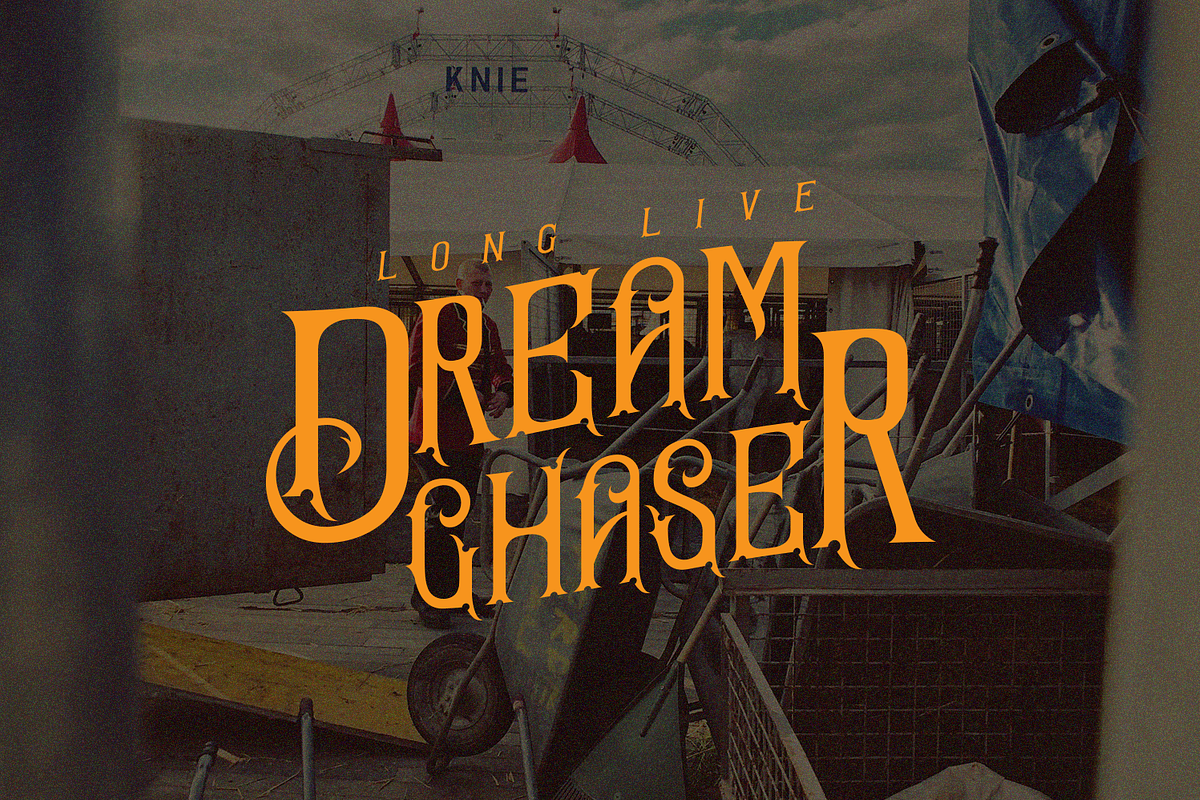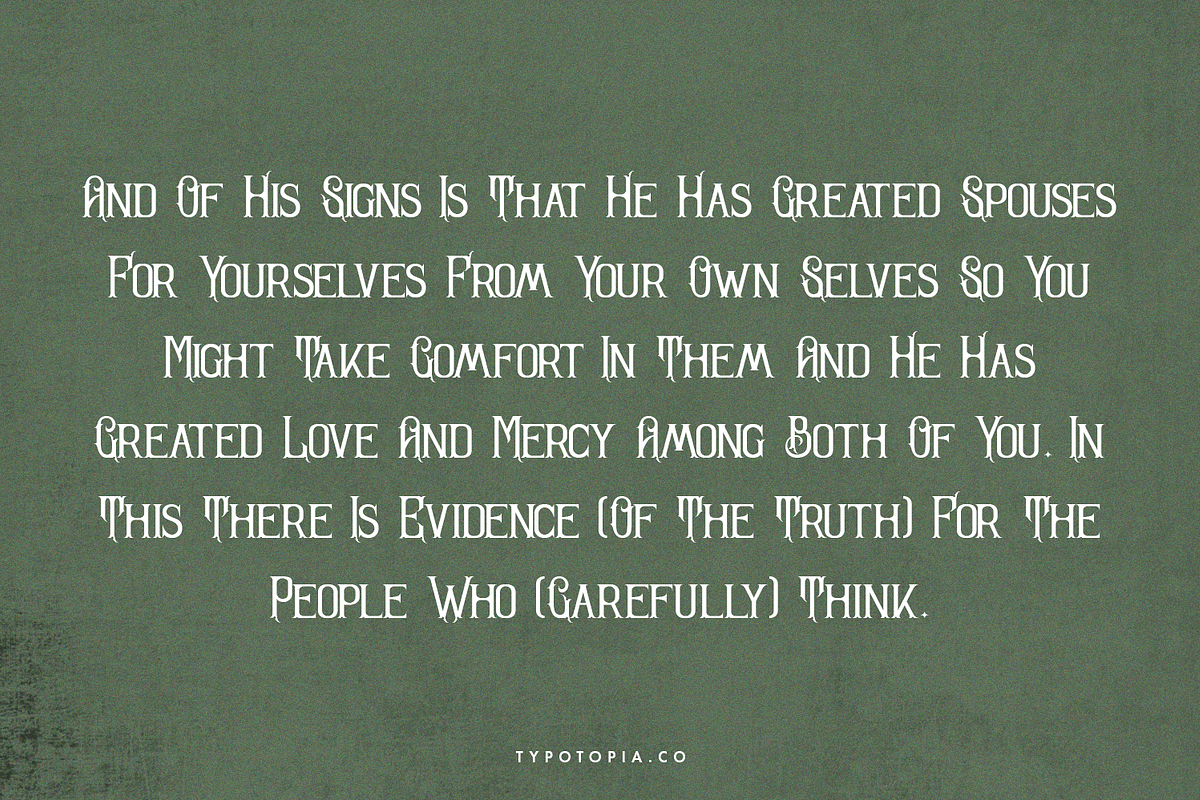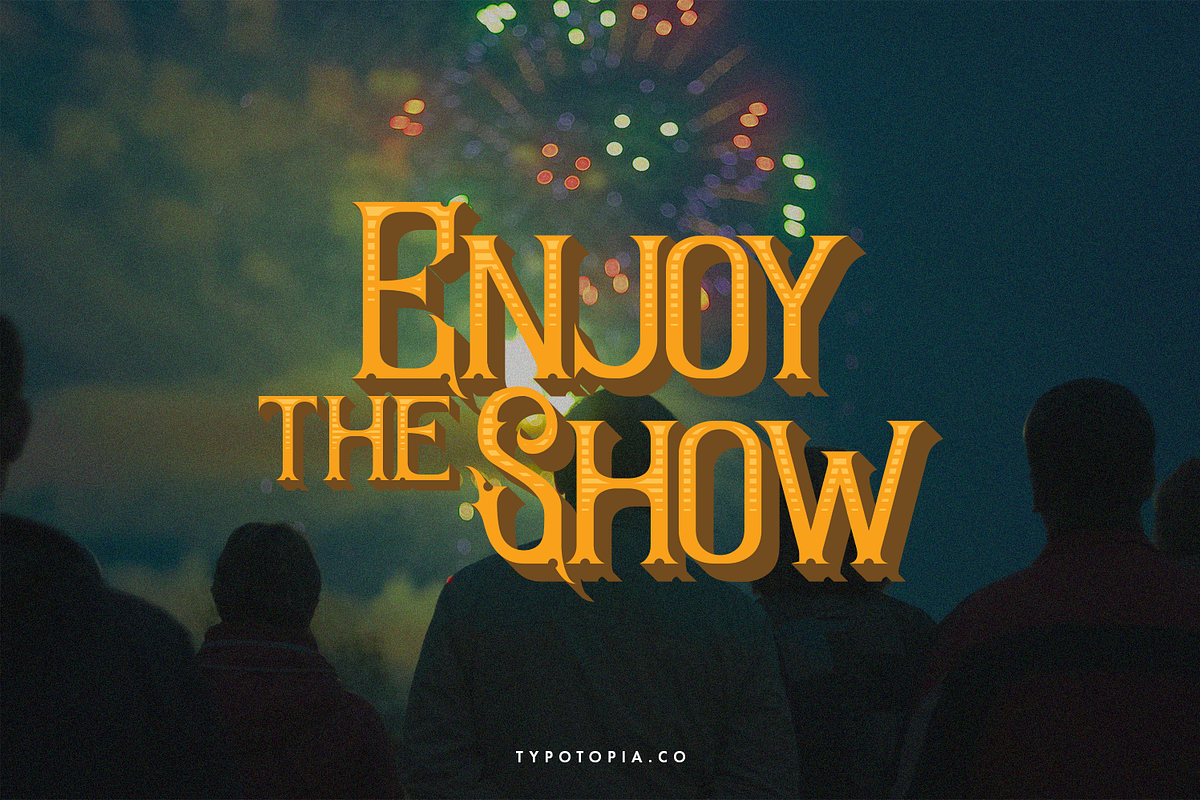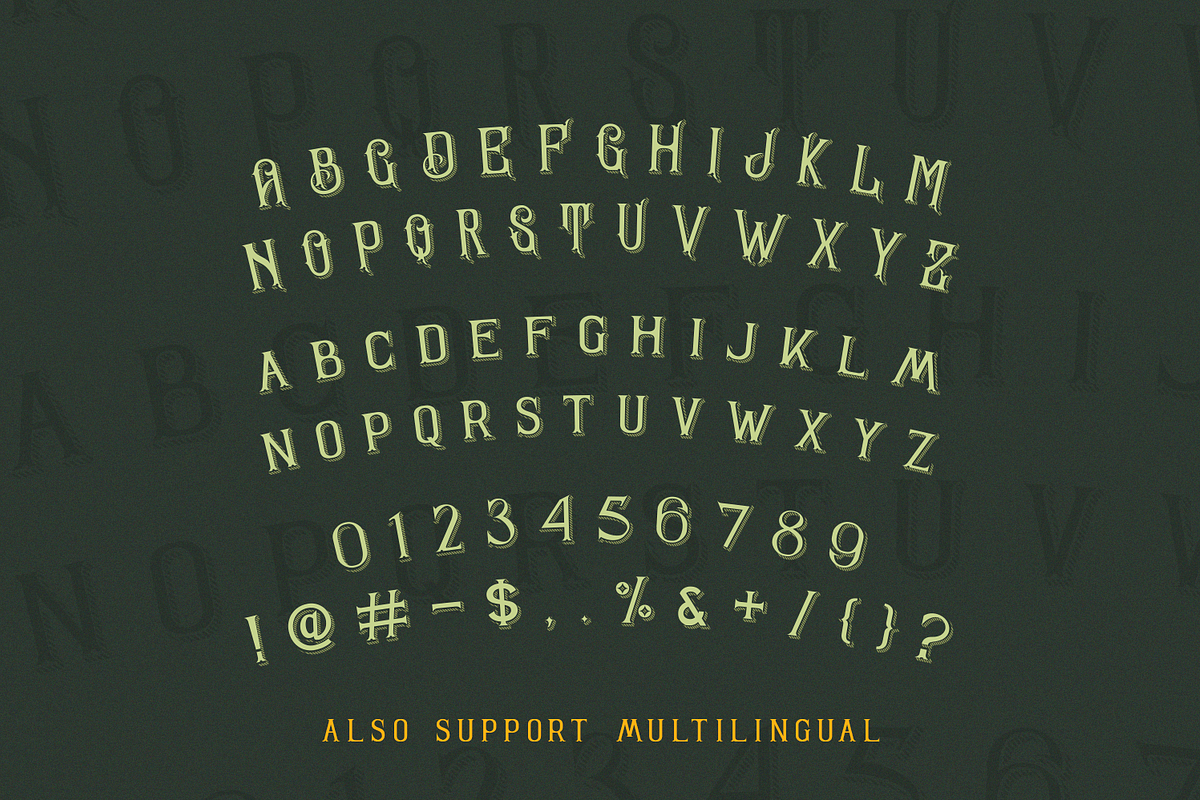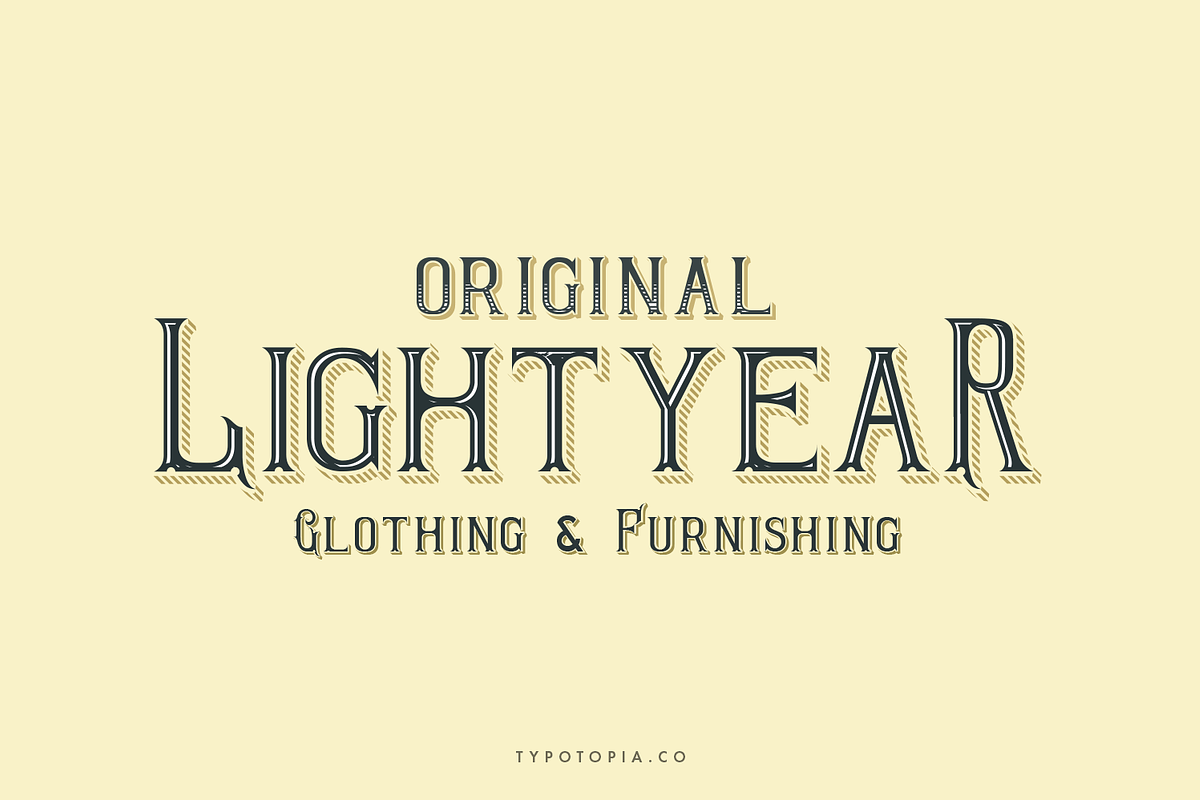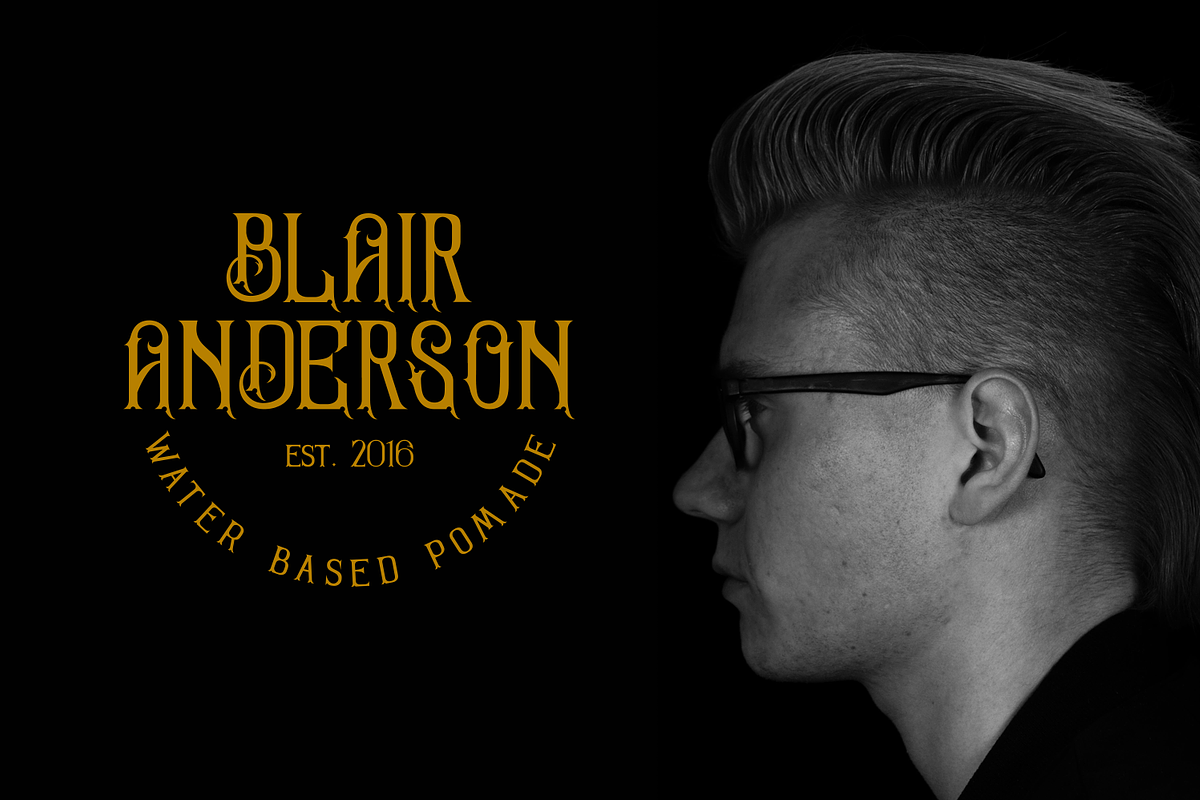
Sandorian Multi Layered Fonts
Sandorian is a Multi-Layered Typeface that adopting Vintage Style. This Typface Comes with 7 Layer/Layered Fonts that you can combine. Every Combination have been carefully crafted to make your designs looks better.
Sandorian is the great choice for several purpose, it suitable for for headline, logotype, apparel, invitation, branding, packaging, advertising etc.
Sandorian also Support Multilingual Feature for Foreign Language, here’s the list :
áäåãéèëìïîòöôøùüAÀÁÂÃÄÅEÈÉÊËIÌÍÎÏNÑOÒÓÔÕÖUÙÜÚÛYÝŸ?Ÿ
Uppercase & Lowercase letters